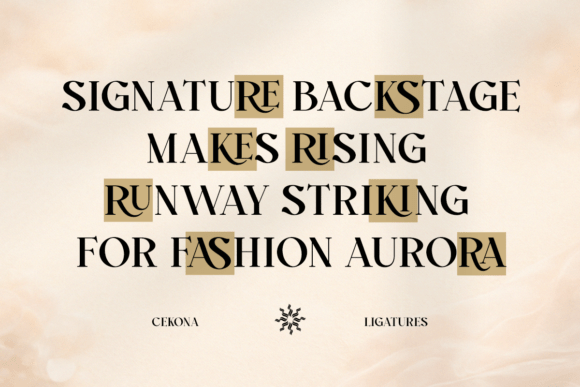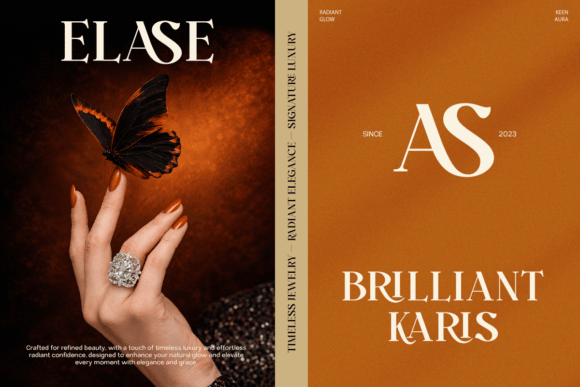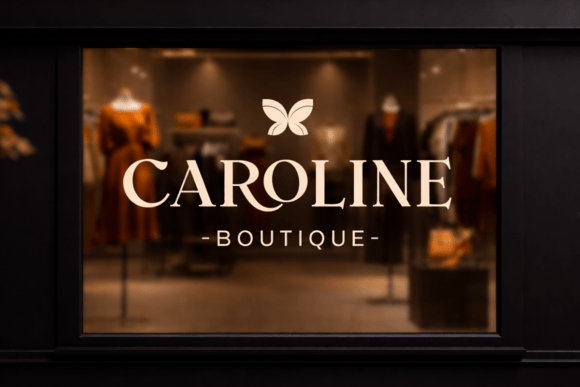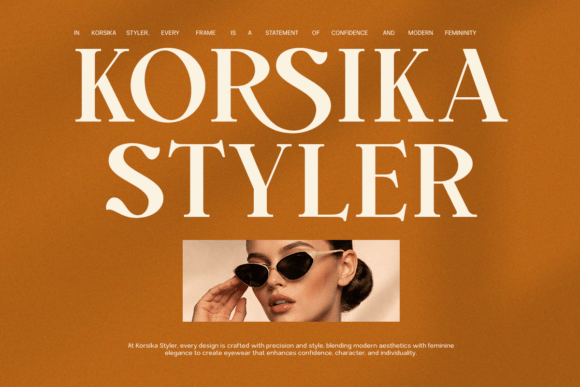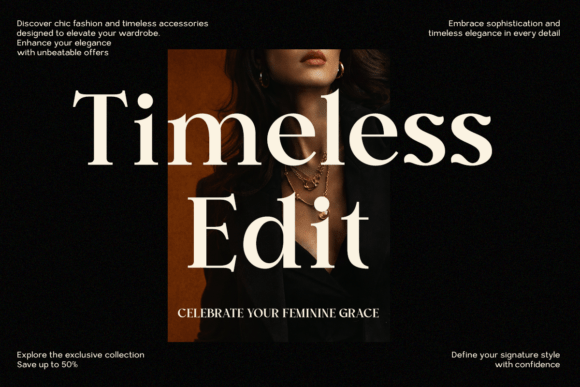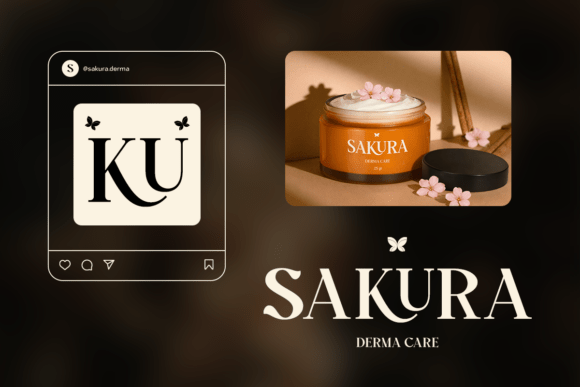
Introduction to Cekona Font
Have you ever stared at a blank canvas, waiting for inspiration to strike? That’s exactly what happened to me when I first laid eyes on the Cekona Font. Its sleek, modern design sparked an idea for a branding project that I’d been struggling to bring to life. As I delved deeper into the typeface, I discovered a world of creative possibilities that elevated my design to new heights.
The Cekona Font is more than just a design resource – it’s a game-changer for designers looking to add a touch of high-quality sophistication to their creative projects. With its 13 unique ligatures and clean proportions, this typeface is perfect for branding, logos, magazines, and fashion campaigns. Whether you’re working on a free download or a high-end commercial project, Cekona Font is sure to impress with its stylish letterforms and transparent background.
As a valuable addition to any designer’s toolkit, Cekona Font offers a unique character that’s both timeless and fresh. Its adaptability across various creative needs makes it an essential design resource for anyone looking to take their projects to the next level.
Key Features of Cekona Font
- High-quality design: Cekona Font is a premium font designed for creative projects, offering a unique and elegant look.
- Unique characteristics: Cekona Font features a distinctive blend of modern and classic elements, making it an ideal choice for designers looking for a unique look.
Honest Review: Cekona Font
I recently stumbled upon the Cekona Font, and I must say it’s been a game-changer for my design projects. The high quality of this font is immediately noticeable, making it a fantastic addition to any design resource.
- ✨ Unique and stylish design: The Cekona Font boasts a modern and sleek aesthetic that’s perfect for creative projects.
However, there are a few limitations to consider: ⚠️ The font may not be as versatile as other options, and some users may find the style too modern or trendy.
Overall, I’m thoroughly impressed with the Cekona Font. Its high quality and unique design make it a valuable addition to any design resource. While it may not be perfect, it’s a fantastic choice for designers looking for a stylish and modern font for their creative projects.
To get the most out of the Cekona Font, use it in combination with other design elements, such as images and graphics. Experiment with different font sizes, colors, and styles to create a unique and creative look.
The Cekona Font is commonly used in graphic design, digital art, and creative writing projects. Its high-quality design makes it an ideal choice for presentations, posters, and other visual materials.